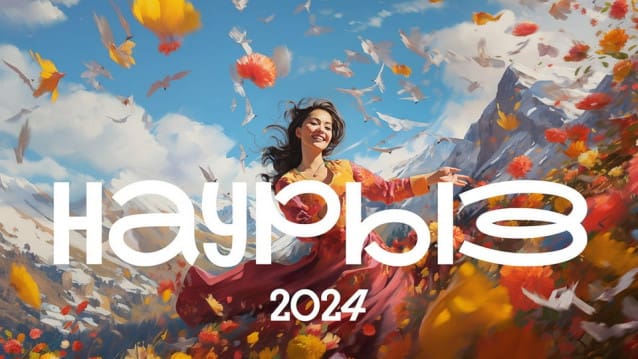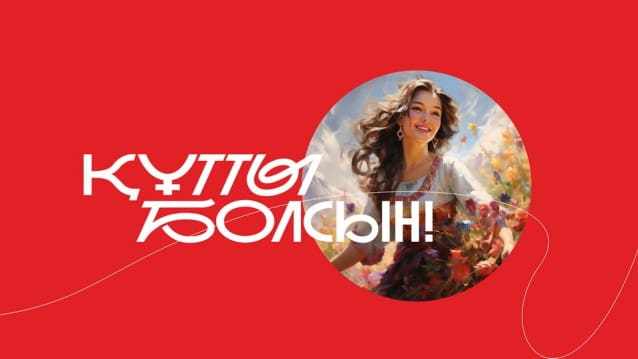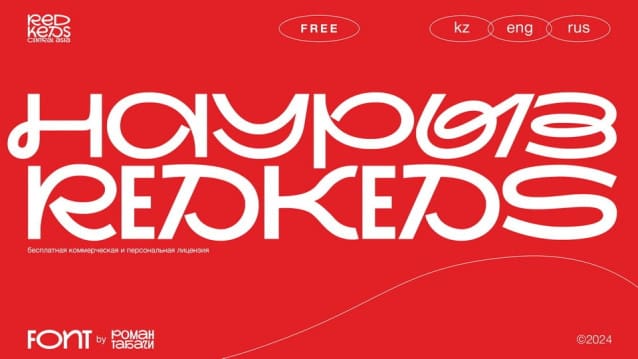
Nauryz RedKeds Font
Nauryz RedKeds Font is a contemporary display typeface that combines soft ornamental details with a strong-willed presence. The font balances smooth curves with robust lines, creating a typographic experience that is both elegant and commanding.
With its unique blend of softness and strength, Nauryz RedKeds is perfect for projects that demand attention and sophistication. Whether you’re designing luxury packaging, bold headlines, or striking posters, this font adds a dynamic touch that captivates the viewer.